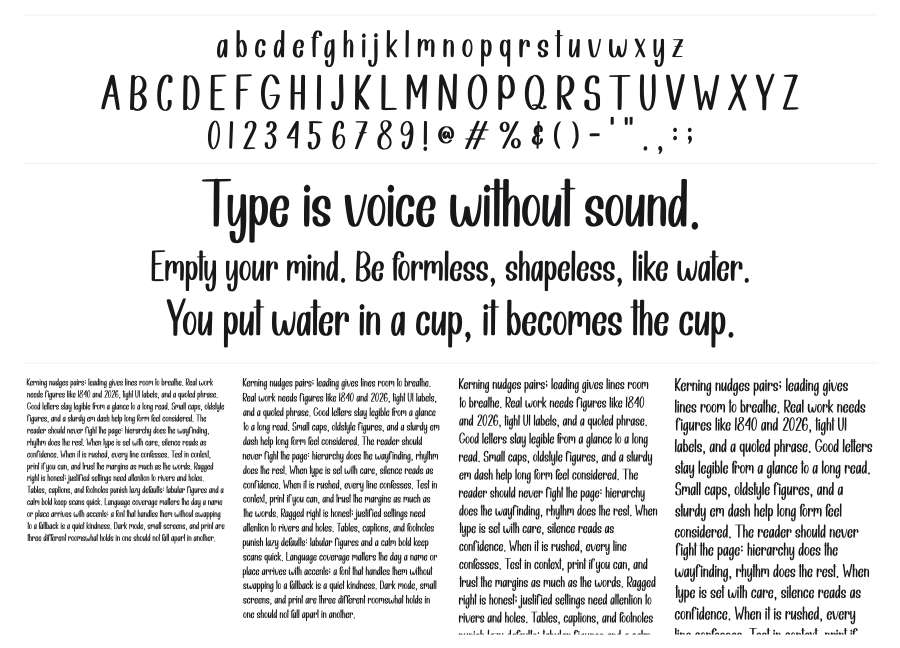
Daralis
by Graphix Line Studio
Daralis is a bold upright script inspired by confident hand-lettering, with thick fluid strokes and a casual bounce that feels natural rather than constructed. The condensed proportions keep it compact and punchy at headline sizes. It works well for branding, packaging, and anywhere you want a handcrafted feel without sacrificing legibility.